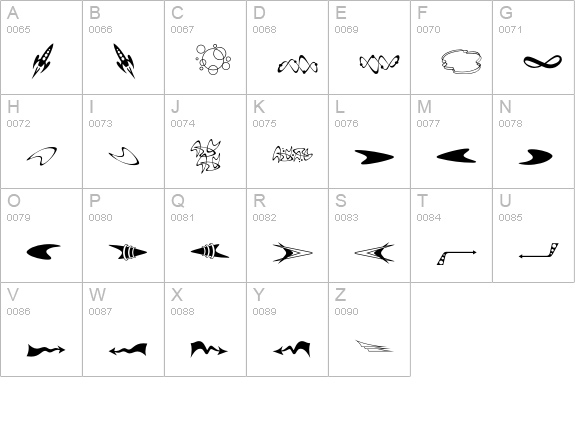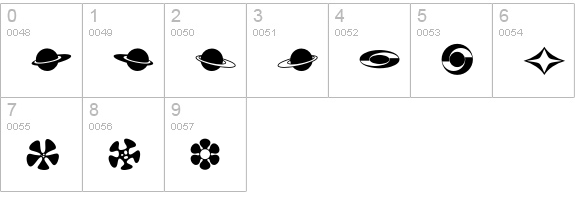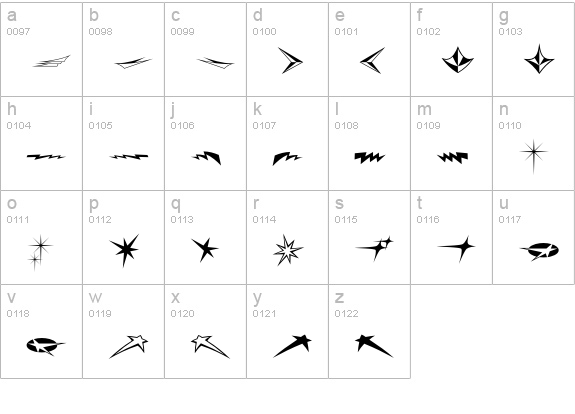
Doo-Dads Font Details
Introducing Doo-Dads font, a whimsical and playful typeface that is sure to add a touch of fun to any design project. This unique font features quirky doodle-like shapes and charming details that will make your text stand out. Whether you're working on a children's book, party invitation, or social media graphic, Doo-Dads font is the perfect choice to bring a sense of creativity and joy to your work. And the best part? Doo-Dads font is completely free to download at FontsMarket.com! Simply visit the website to access this delightful font and start incorporating its cheerful personality into your designs today. Don't miss out on this fantastic opportunity to enhance your projects with Doo-Dads font's free-spirited charm and character.